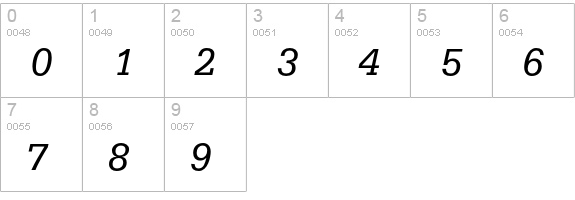
12 Serifa** 56 Italic 13235 Font Details
12 Serifa** 56 Italic 13235 is a distinctive, italic variant in the 12 typeface family \xE2\x80\x94 well suited to design and typography projects.
The Serifa** 56 Italic 13235 font is a stunning typeface that effortlessly combines elegance and sophistication. Its sleek and slanted design adds a touch of modernity to any project, making it perfect for both digital and print media. With its unique and eye-catching letterforms, Serifa** 56 Italic 13235 commands attention and leaves a lasting impression. Whether you're designing a logo, creating a poster, or crafting a website, this font's versatility ensures that it will always deliver the desired impact. One of the best aspects of the Serifa** 56 Italic 13235 font is that it is freely available to download at FontsMarket.com. This means that you can easily access and use this exceptional typeface without any cost. It's a fantastic opportunity to enhance your designs with a high-quality font without breaking the bank. The Serifa** 56 Italic 13235 font boasts excellent legibility, even at smaller sizes, making it ideal for body text as well as headlines. Its stylish curves and slanted nature create a dynamic flow throughout the typography, adding a touch of artistic flair to any project. This font is perfect for a wide range of applications, including branding, editorial design, packaging, and more. Its bold personality and distinctive style make it an excellent choice for projects that require a touch of elegance and sophistication. In conclusion, the Serifa** 56 Italic 13235 font is a visually stunning typeface that is freely available to download at FontsMarket.com. With its modern design, versatility, and exceptional legibility, it is a perfect choice for designers looking to elevate their projects to new heights.